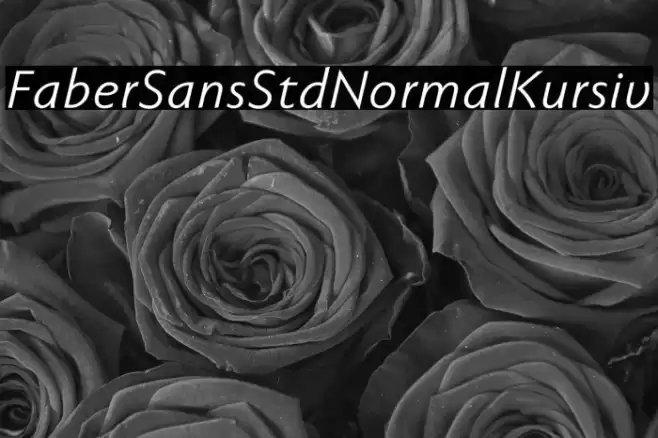
FaberSansStd-56NormalKursiv Font
FaberSansStd-56NormalKursiv Description
This font exhibits a clean and modern sans-serif style with a slight italic slant, providing a sense of motion and elegance. The characters are well-proportioned with a consistent stroke width, contributing to its readability and versatility. The uppercase letters are bold and assertive, while the lowercase letters maintain a friendly and approachable appearance. The numerals are clear and distinct, making them suitable for various applications. The special characters are designed to complement the overall aesthetic, ensuring a cohesive look across different types of text.
| Use Case | Headlines, Body text, Logos |
| Proposed Projects | Ideal for branding, editorial design, websites, and advertising materials where a modern and elegant touch is desired. |